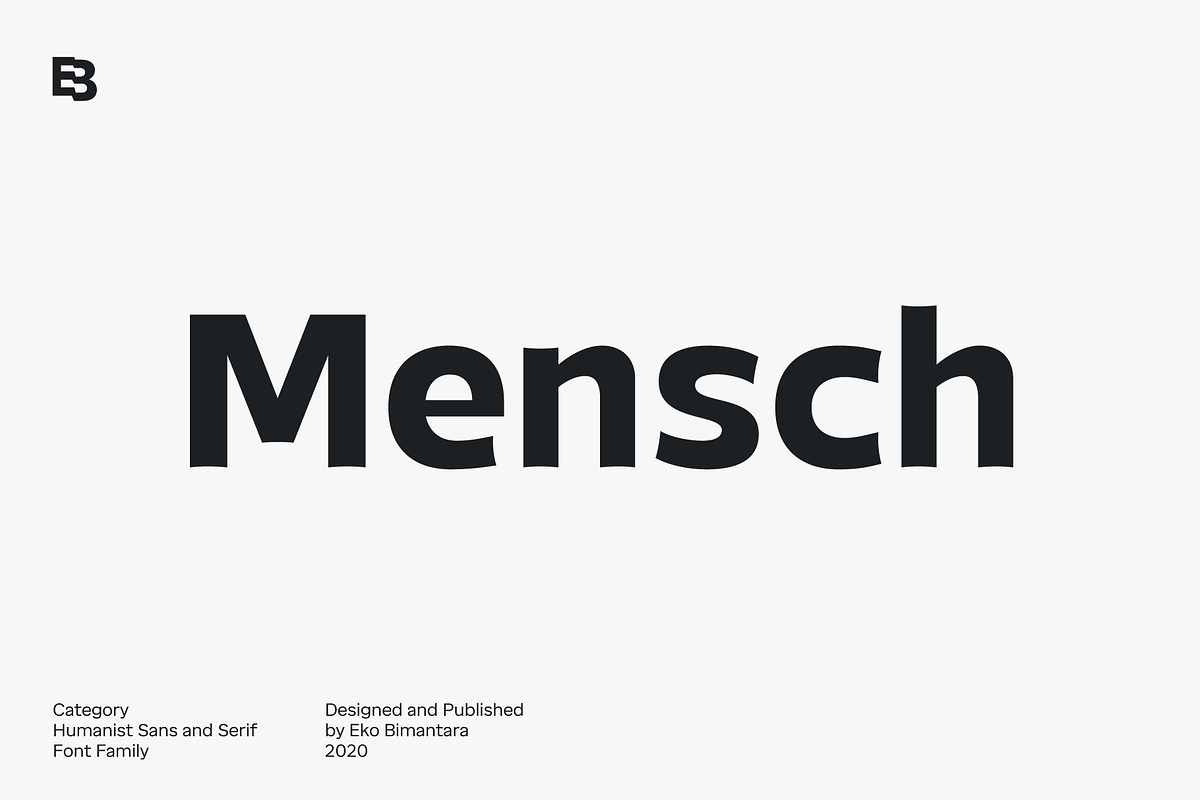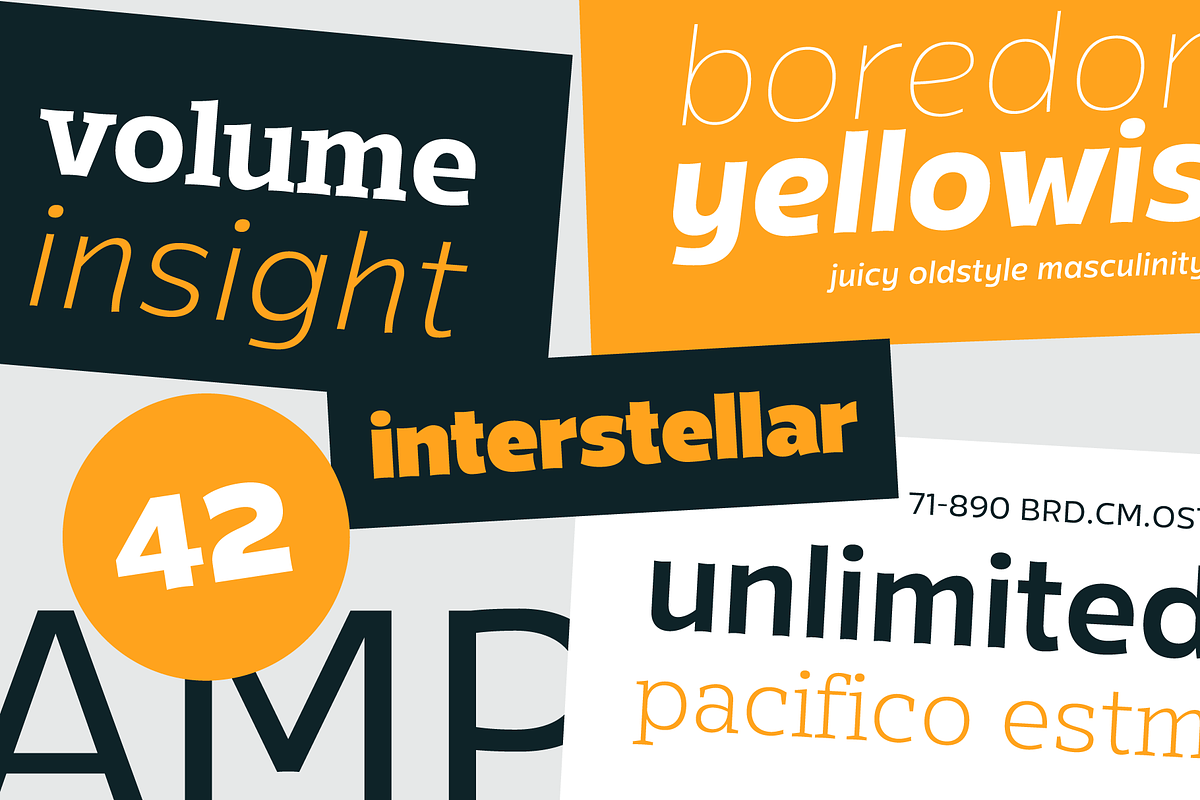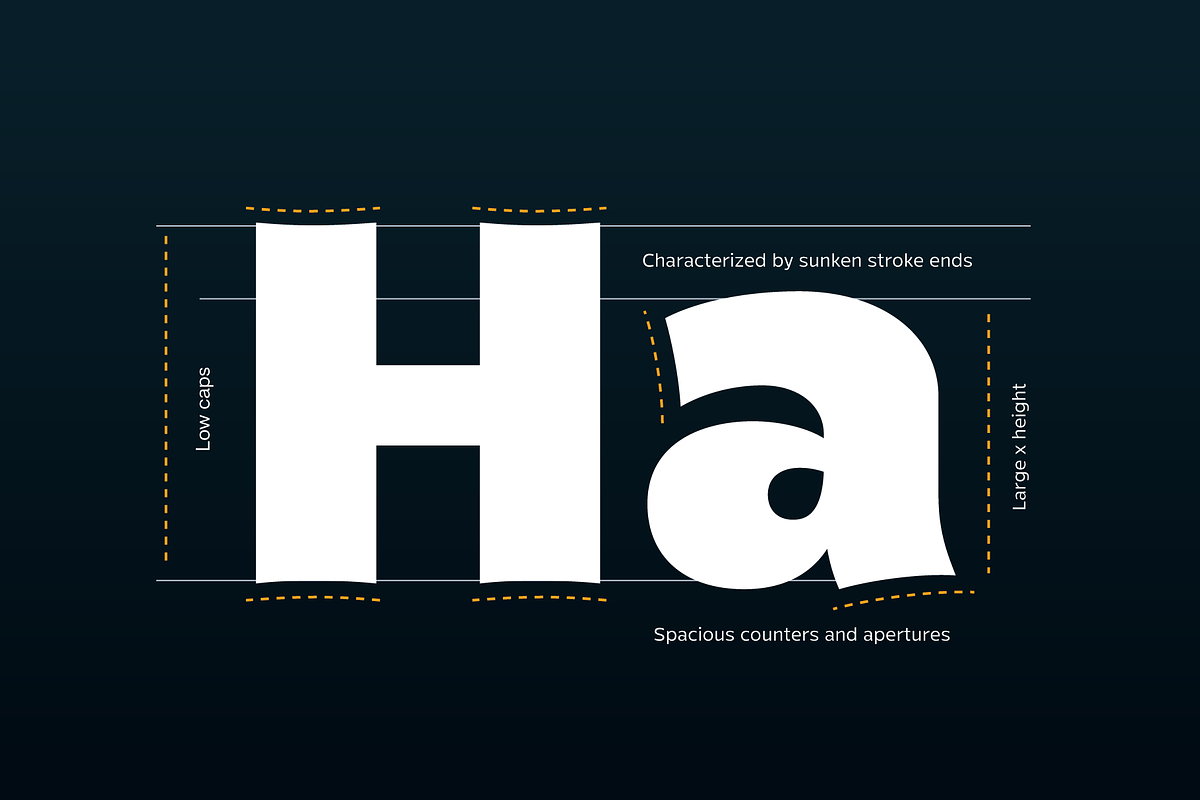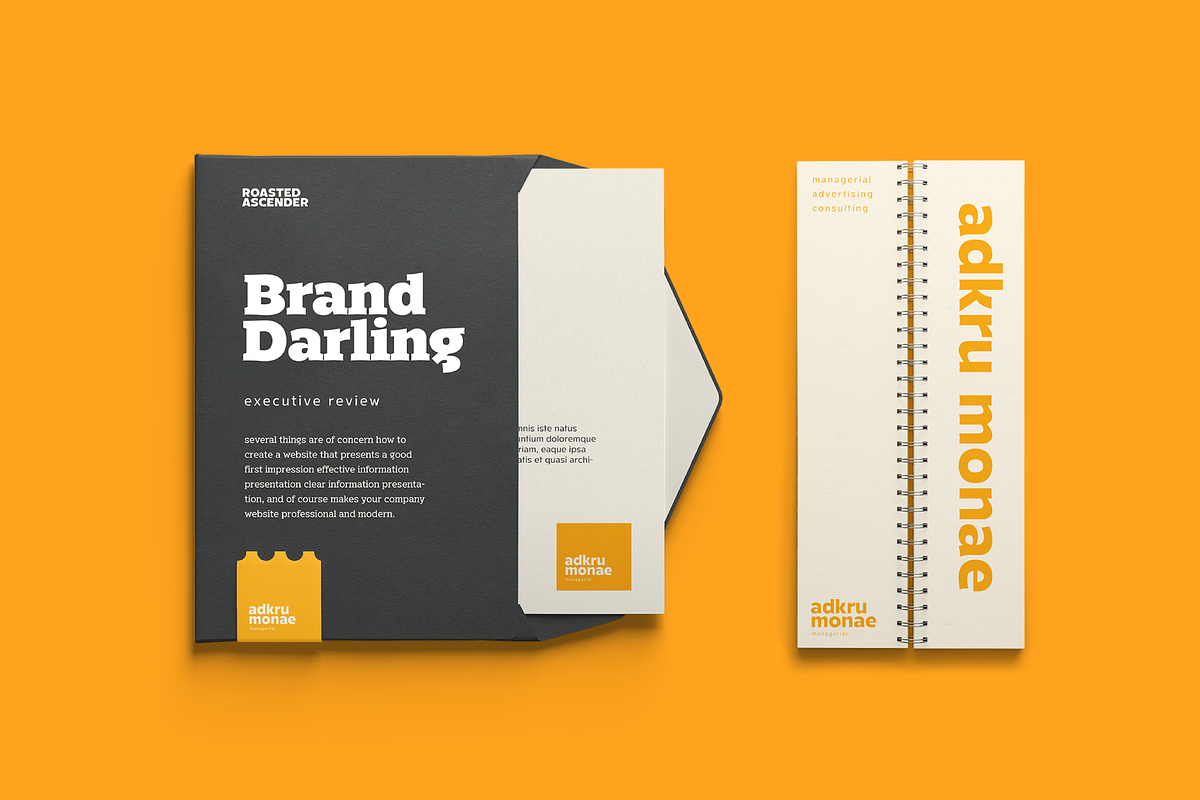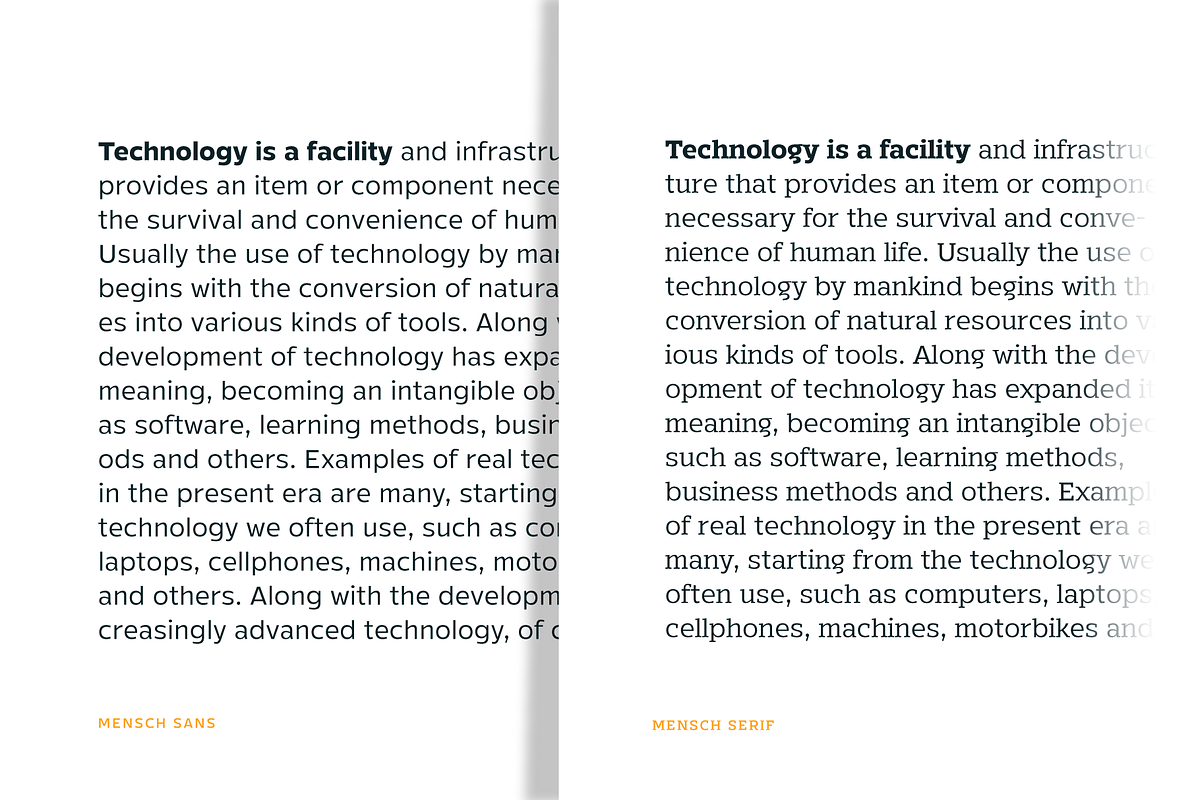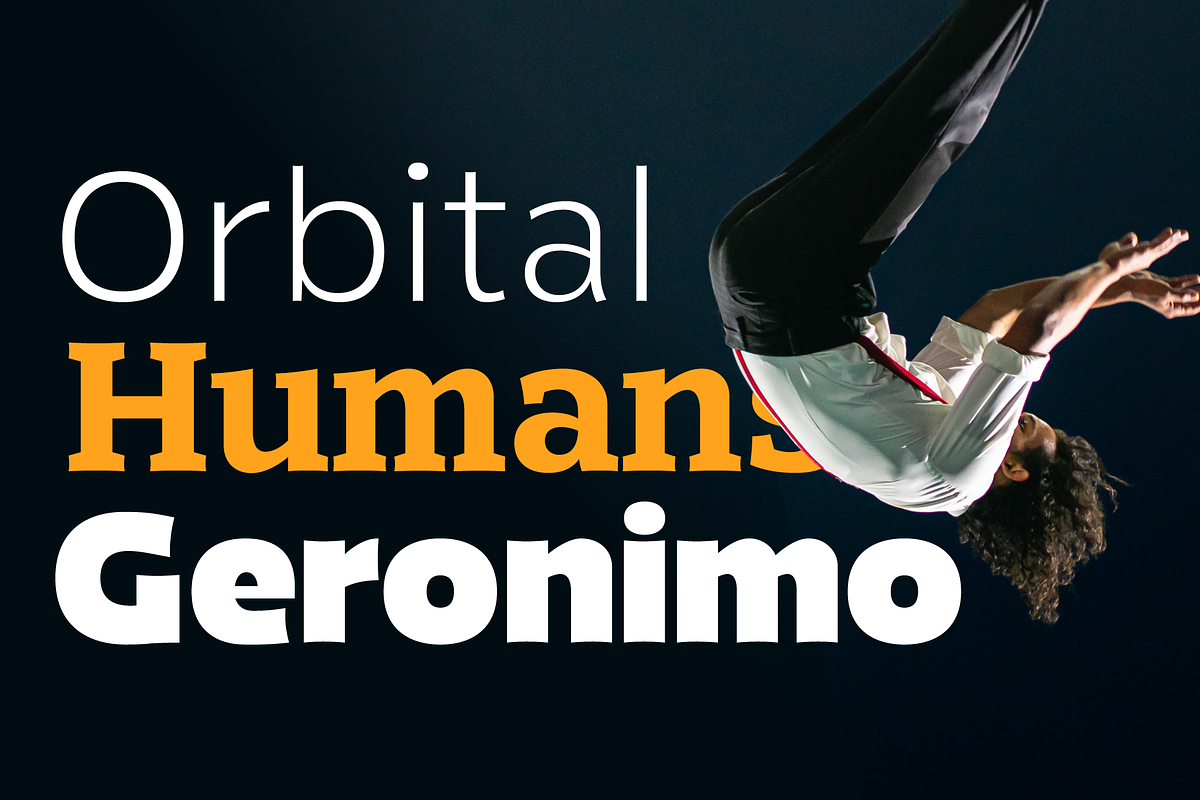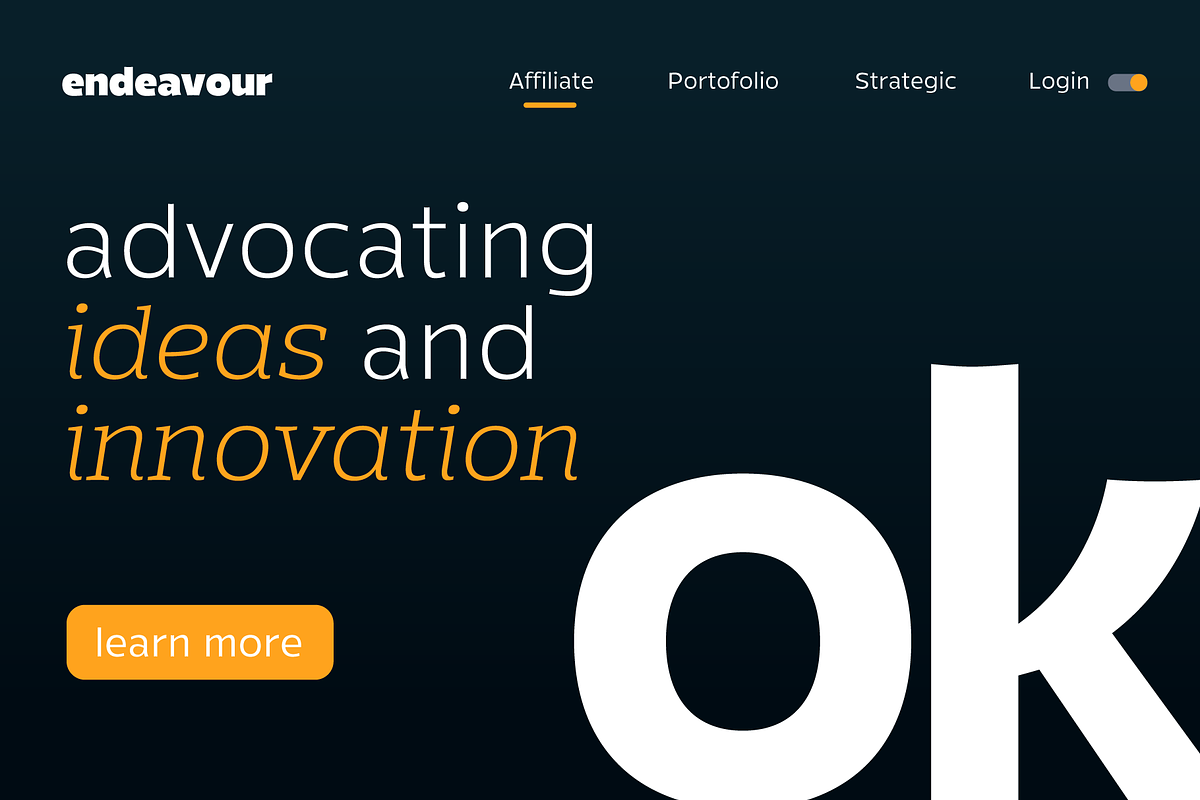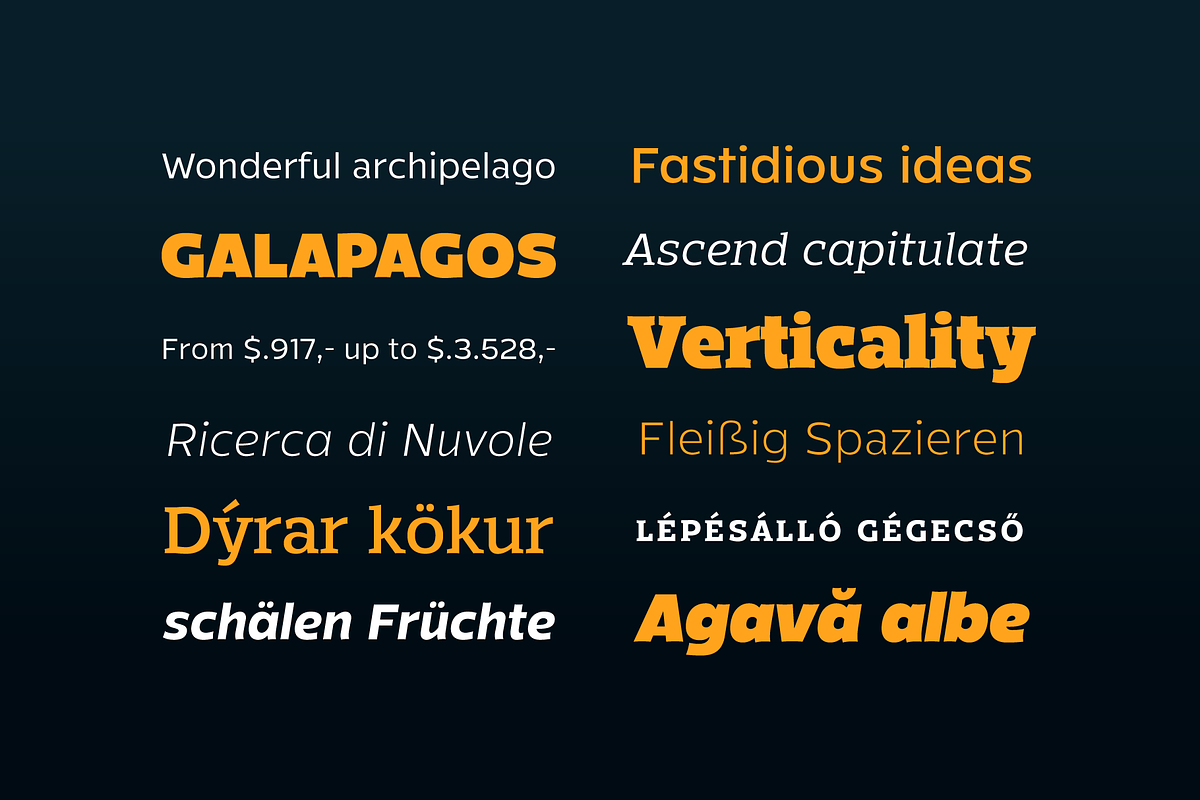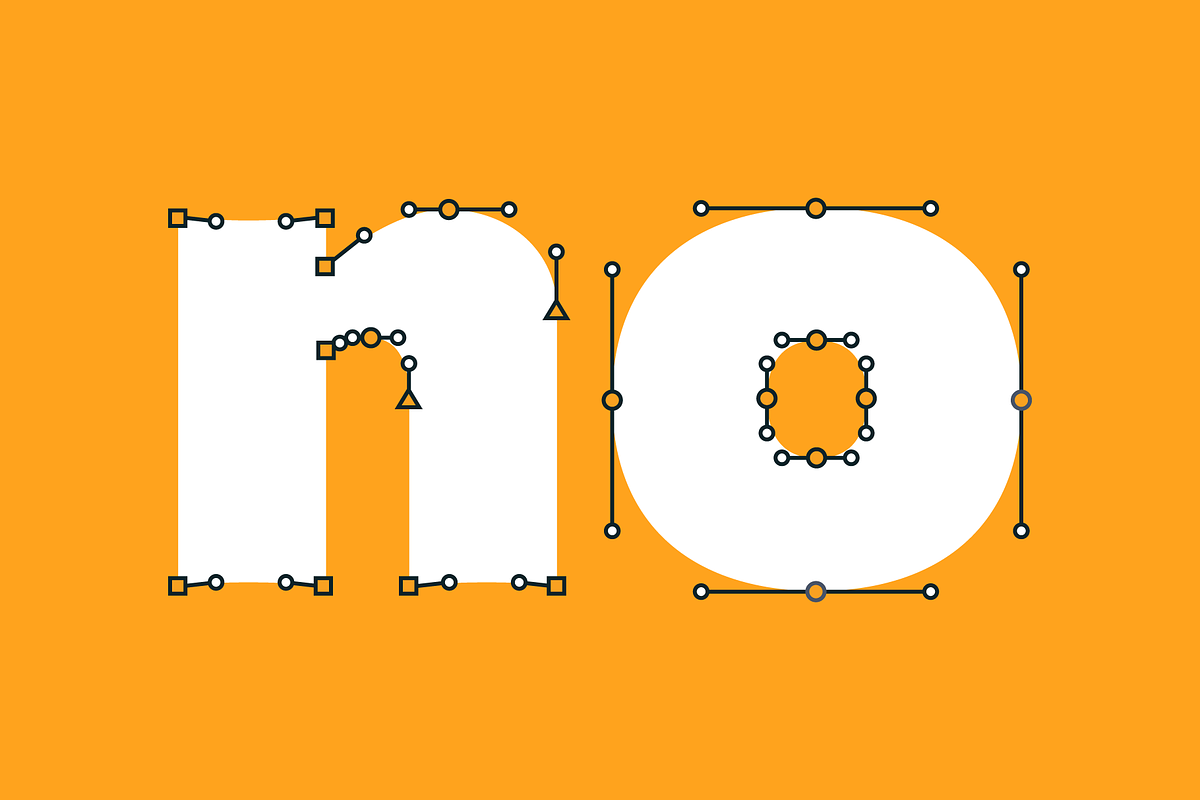
Mensch; 32 Fonts of Sans & Serif
Mensch is a complete humanist sans and serif font family. Mensch emphasize expressive and fun characters that visualized by it's letterforms; Large x height, low caps, spacious counters and apertures, characterized by diagonal and sunken stroke ends. Perfect for large display and also to be read in small size. Mensch contain 32 fonts consist of sans and serif styles with 8 weight from thin to black with each matching italics. Its contain more than 440 glyphs which support broad latin languages.